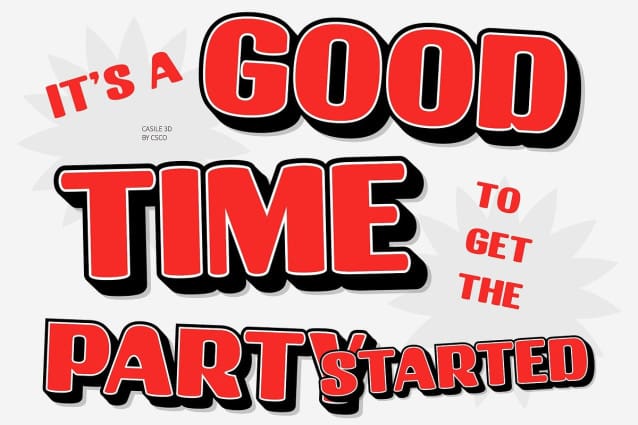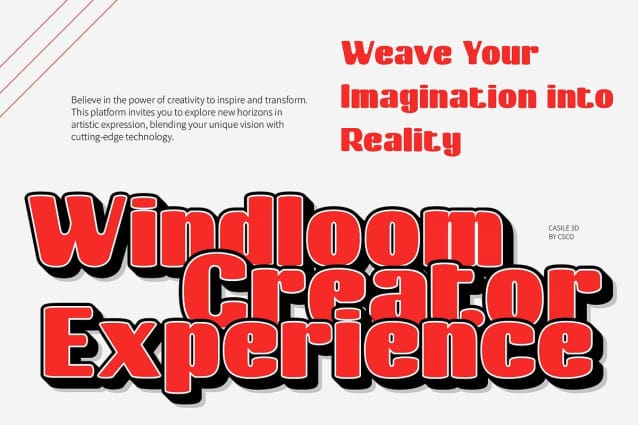
Casile 3D Font
Casile 3D Font is a bold sans serif font that brings a distinctive retro vibe, blending classic typography with modern design elements. Its robust letterforms evoke a sense of nostalgia, while the clean lines maintain a contemporary feel. The font stands out with its strong, attention-grabbing presence, making it ideal for any project seeking a bold and visually impactful look.
Enhanced by a Captivating 3D Effect One of the defining features of Casile 3D is its dynamic 3D effect, which gives the font an added sense of depth and dimension. This creates a captivating, almost tactile visual experience, making the text appear to leap off the page. The 3D effect adds a sense of playfulness and movement to the design, ensuring that Casile 3D remains fresh, modern, and full of energy.
Versatile for Posters, Branding, and Promotional Materials Casile 3D is perfectly suited for a variety of applications, from posters and branding to promotional materials and packaging. Its bold, retro-inspired design makes it a great choice for projects looking to evoke a sense of the past while remaining visually relevant in contemporary settings. Whether for event posters, bold branding projects, or eye-catching promotional campaigns, this font ensures a memorable and striking impression.